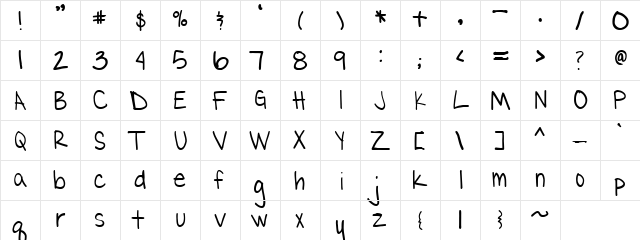
PC Diva Regular Font Preview
PC Diva Regular
PC Diva Regular Font Details
Design Context for PC Diva Typeface
PC Diva is a composed and adaptable typeface that performs quietly and consistently across a wide range of design contexts.